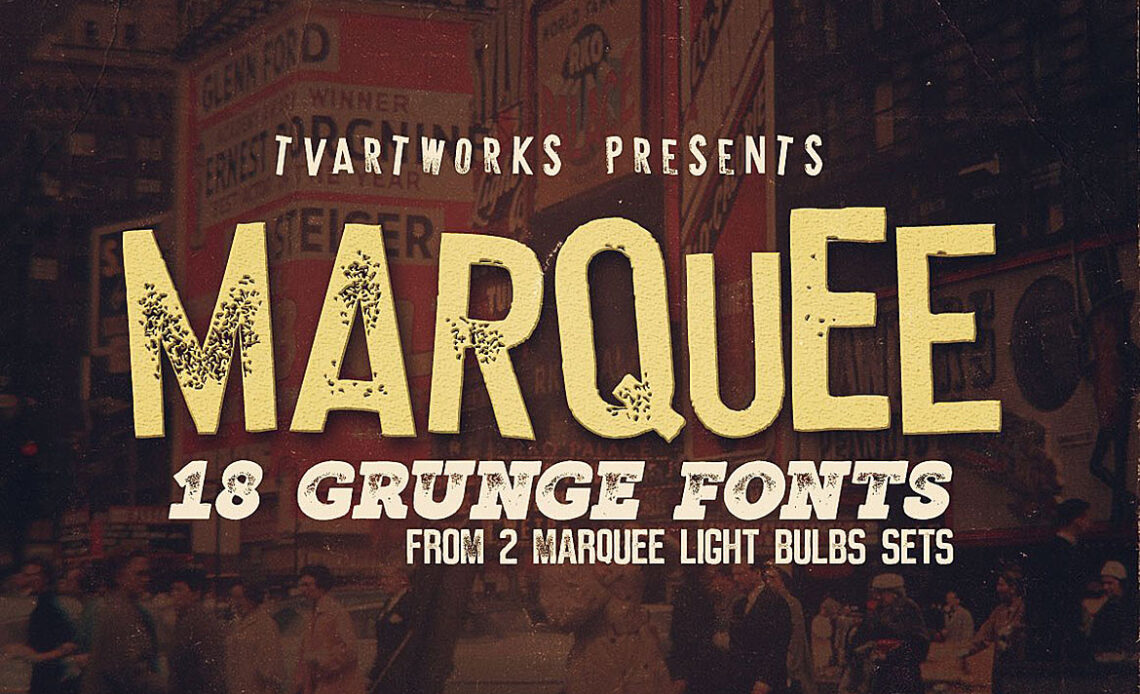
Introducing Marquee Font, a groundbreaking display font family that captures the essence of urban grit and artistic expression. Crafted by the talented tvartworks, this set of 18 grunge-inspired fonts bursts with character and personality, ready to elevate your designs to new heights.
Marquee's distinct aesthetic draws inspiration from weathered signs, graffiti-adorned walls, and the raw beauty of urban landscapes. Its bold and textured letterforms exude a sense of authenticity and edginess, perfect for creating designs that demand attention. Whether you're working on posters, flyers, social media graphics, or branding projects, Marquee's versatility knows no bounds.
Immerse yourself in the world of Marquee and discover a treasure trove of creative possibilities. From the bold and commanding Marquee Rough to the playful and energetic Marquee Inline, each font in this collection possesses its own unique charm. Experiment with different combinations to create stunning typographic compositions that leave a lasting impact.
Don't miss this opportunity to add a touch of urban flair to your designs. Marquee Font is the perfect choice for those seeking a font family that embodies both style and substance. Its captivating grunge aesthetic and boundless versatility make it a must-have for any design arsenal.